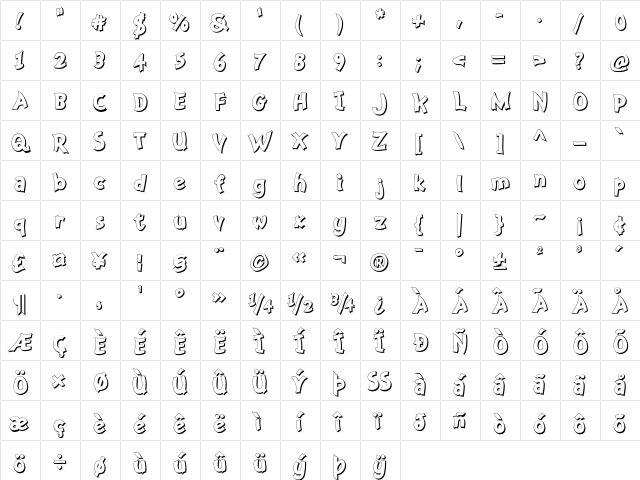
Nanumunga Shadow Bold Shadow Bold
| Foundry | Jeremy Dooley |
Design Context for Nanumunga Shadow Bold Typeface
Nanumunga Shadow Bold brings ornamental detail and strong personality to headlines and identities, where visual impact matters more than quiet functionality. Its bold stroke weight gives it real presence on the page.
Font Pairing: Pair with a clean neutral sans-serif for body copy to let Nanumunga Shadow Bold's character lead without overwhelming the composition.
Pro Tip: Treat Nanumunga Shadow Bold as the centrepiece of your typographic hierarchy. One strong heading set in a decorative face can carry an entire layout.